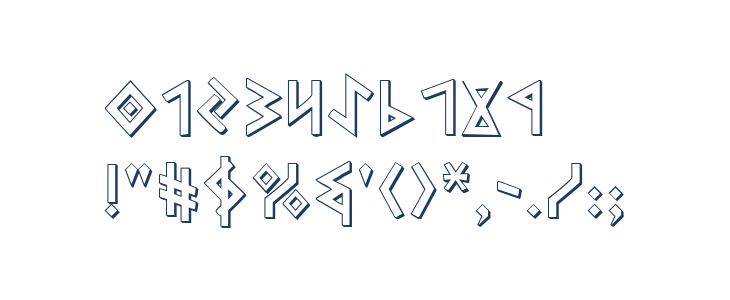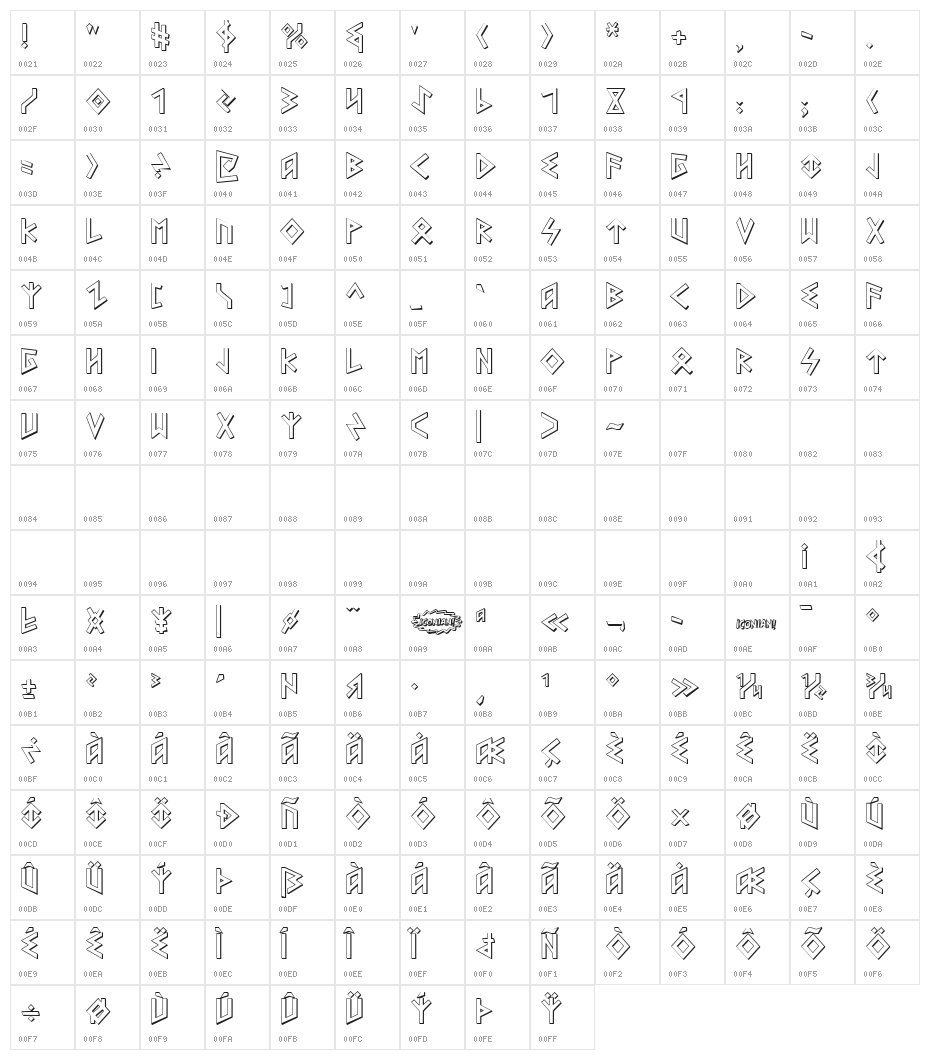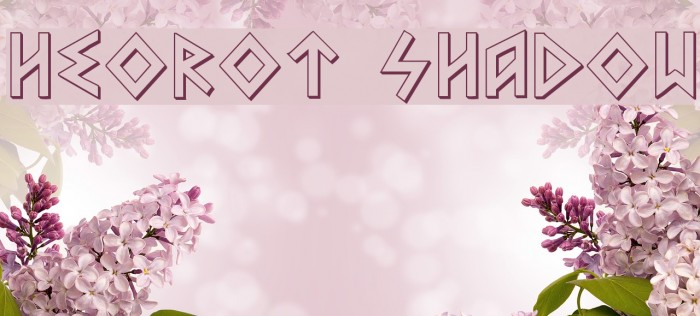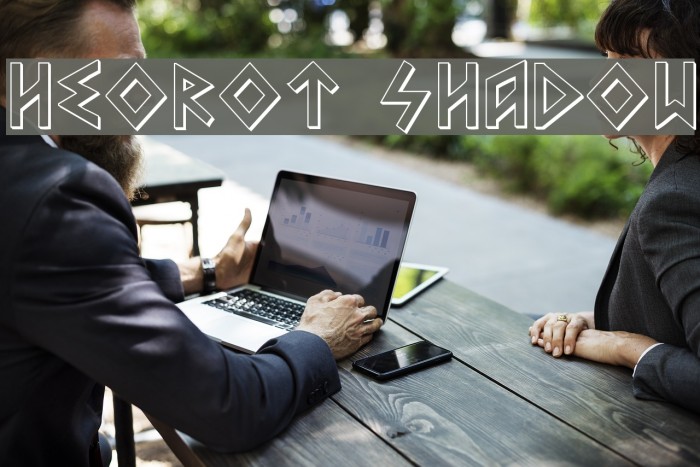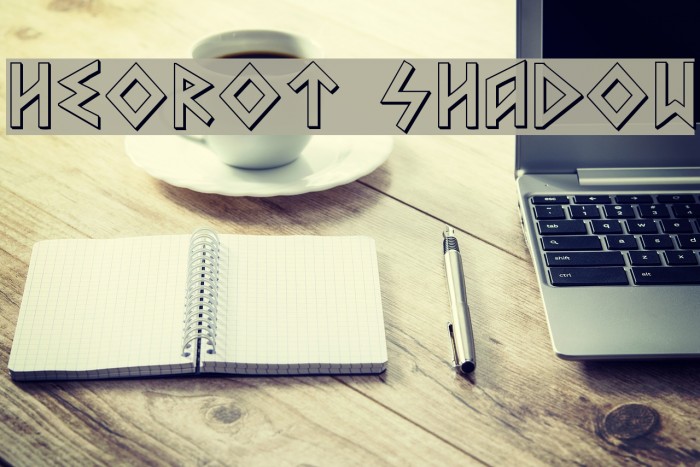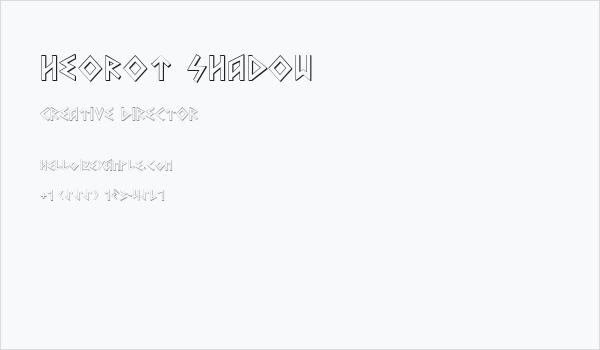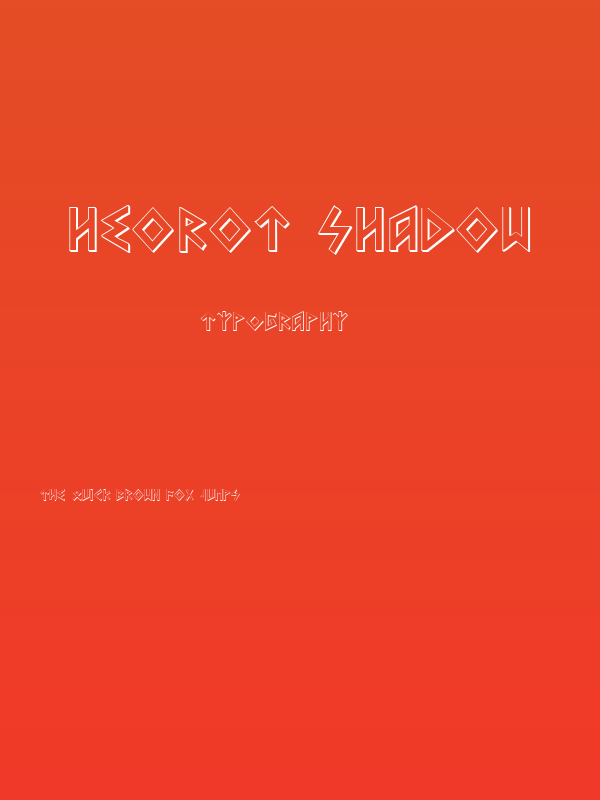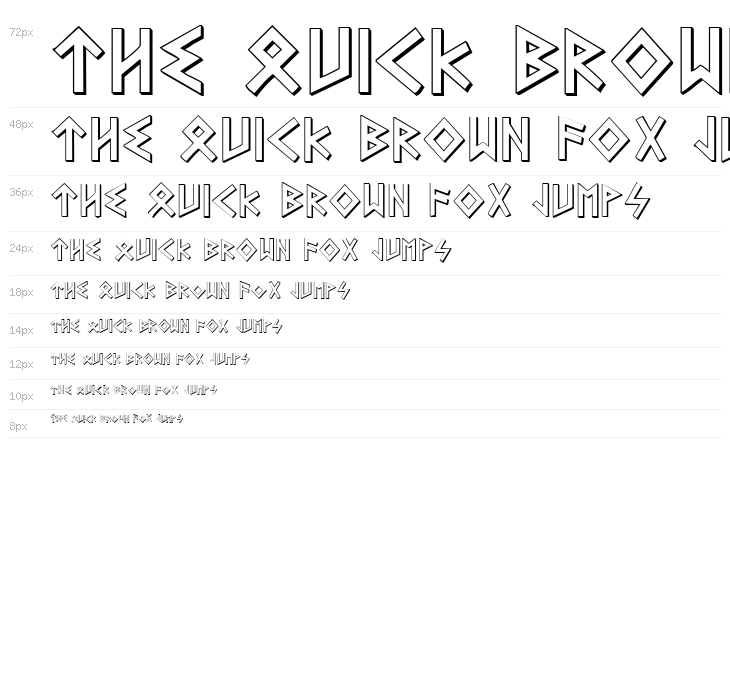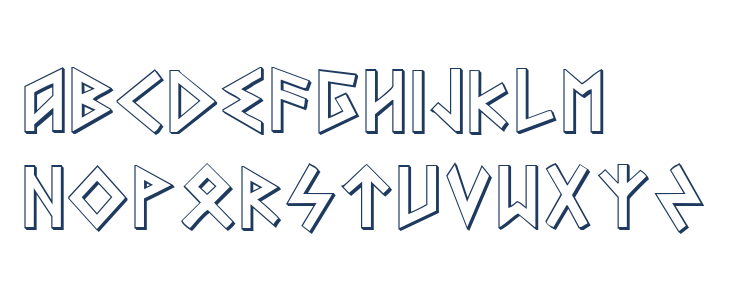
Heorot Shadow Font
Heorot Shadow Description
This font features a bold, geometric design with a shadow effect that gives it a three-dimensional appearance. The characters are constructed with straight lines and sharp angles, reminiscent of runic or ancient script styles. The uppercase and lowercase letters maintain a consistent structure, enhancing the font's cohesive look. Numbers and special characters follow the same design principles, ensuring uniformity across all glyphs. The font's unique style makes it stand out, ideal for projects that require a strong visual impact.
| Proposed Projects | Ideal for video game titles, fantasy-themed posters, and branding for products with a historical or mythical theme. |